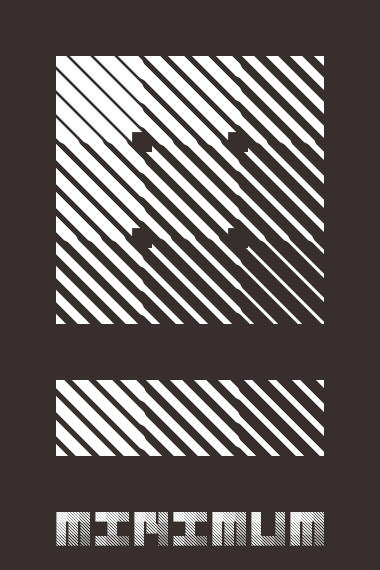
fs Random Pattern
minimum
Clone of fs Random.
I keep my brain infront of you!
Hats off to you, master.
A great gigahit of graduated goodness :) 10/10
Freaking stunning shades, inspirative! 10/10
Even better than random and a very strong sample! 10/10
I like this font too. It's ink-saving b.t.w.